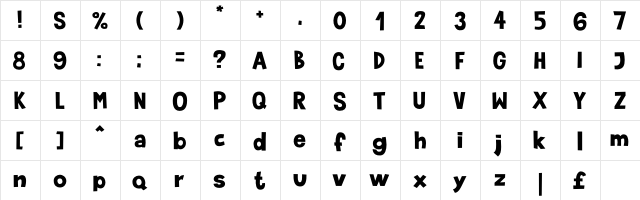
Nathaniel-19 Regular
| Designer | Adam Jedrzejewski |
Design Context for Nathaniel-19 Typeface
Nathaniel-19 takes a measured approach to typography — its balanced proportions and neutral character make it a reliable workhorse for both digital and print work.